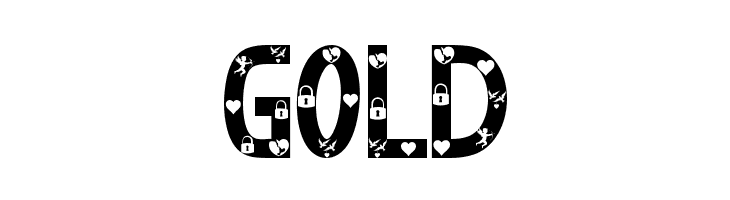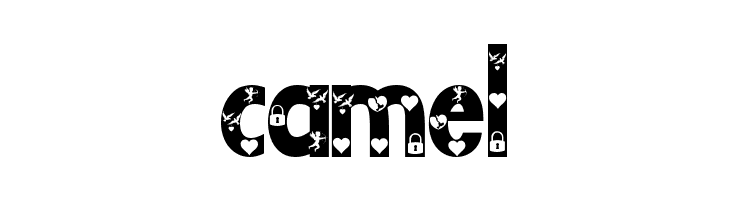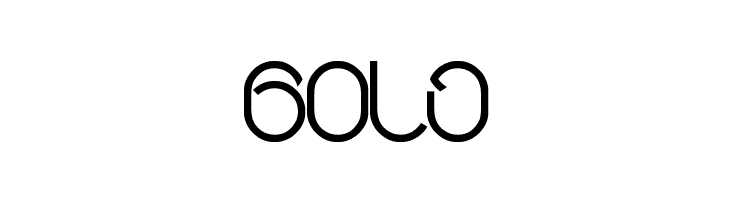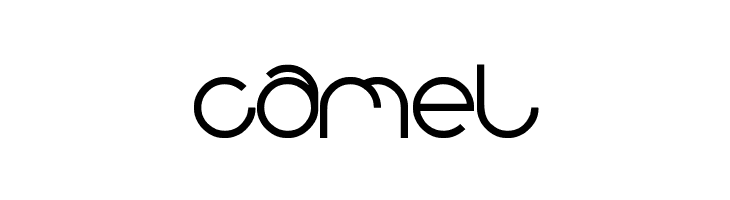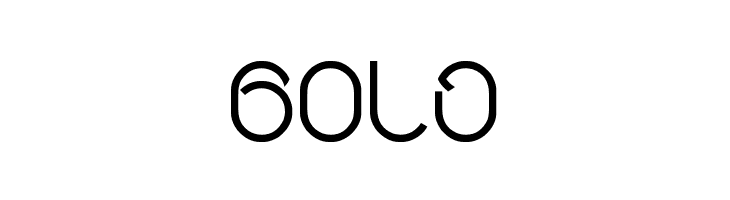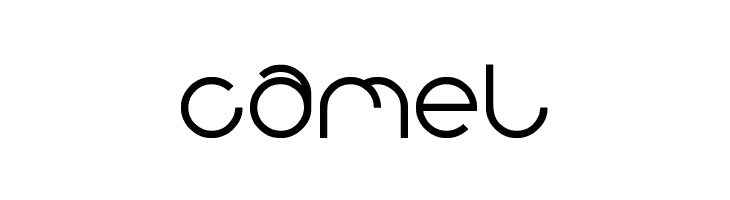
• Ahellya
A classic serif font with elegant strokes and medium contrast.
• Aine
• AIRLOCK
Bold, geometric font with a 3D shadow effect.
• AIRLOVE - Personal Use
A decorative font with playful patterns and motifs, ideal for eye-catching designs.
• AJC BT FONT
• Aksara Sastrajendra
An elegant, calligraphic font with artistic curves and sharp angles.
• al kisah
• alberto
A modern, geometric font with clean, rounded edges and consistent stroke width.
• alberto
A modern, geometric font with sleek lines and rounded edges.
• Aleida Demo